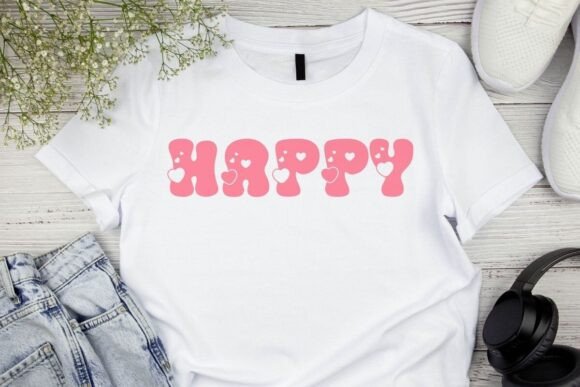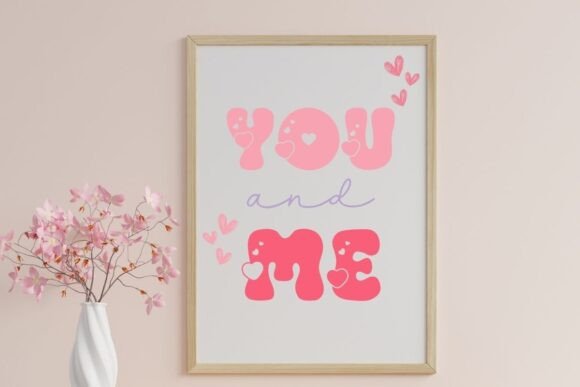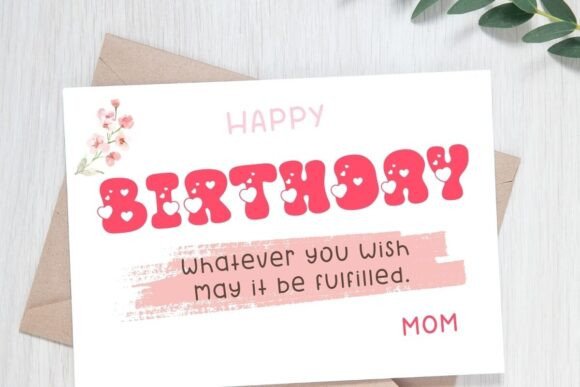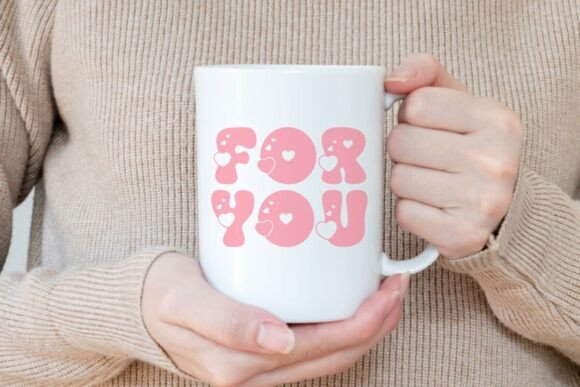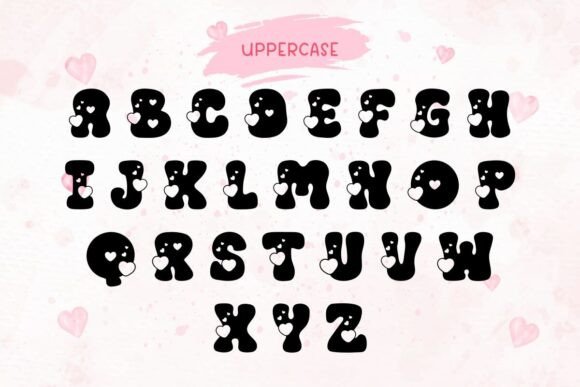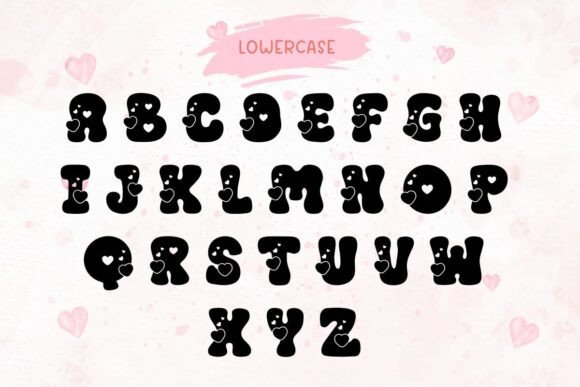
Introduction to Retro Heart Font
Infuse your projects with love using Retro Heart, a charming vintage-inspired font.
Perfectly crafted for Valentineโs Day, weddings, greeting cards, or any celebration of love and romance .
Key Features of Retro Heart Font